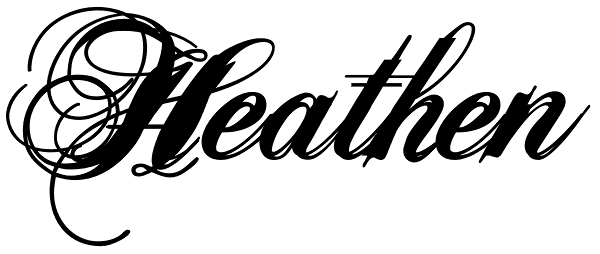
Heathen
A few emails sent to Canada Type have asked for more “bad scripts”. A few others asked for "more Mascara-like treatments". And some asked for more fonts of “distressed elegance”. Whatever you like to call this style of doubled-script font, sightings...
Heathen
Heathen Two